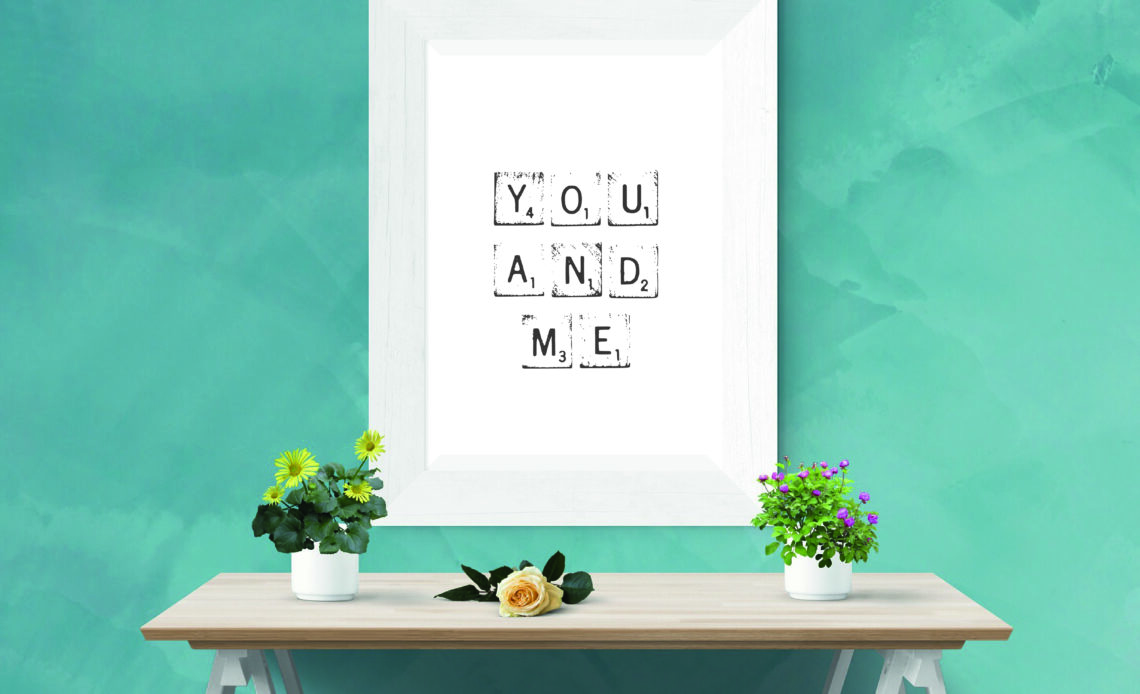
Prepare to be enthralled by Lexiko Font, the remarkable decorative font family that will transform your designs into captivating masterpieces. Inspired by the iconic board game 'Scrabble', Lexiko Font is a playful and charming display font that exudes nostalgia and warmth.
Imagine crafting personalized posters with heartwarming messages for your cherished family and friends, creating eye-catching invitations that spark curiosity and excitement, or designing unique prints, mugs, and canvases that tell captivating stories.
With its classic chic board game style, Lexiko Font brings a touch of timeless elegance to your creative projects. The full alphabet set, complete with scoring numbers and blank tiles, unleashes a world of possibilities for expressing your imagination and creating designs that leave a lasting impression.
Unleash your creativity and embark on a delightful journey with Lexiko Font. Transform ordinary designs into extraordinary works of art, capturing the attention of your audience and evoking emotions that resonate deep within their hearts.